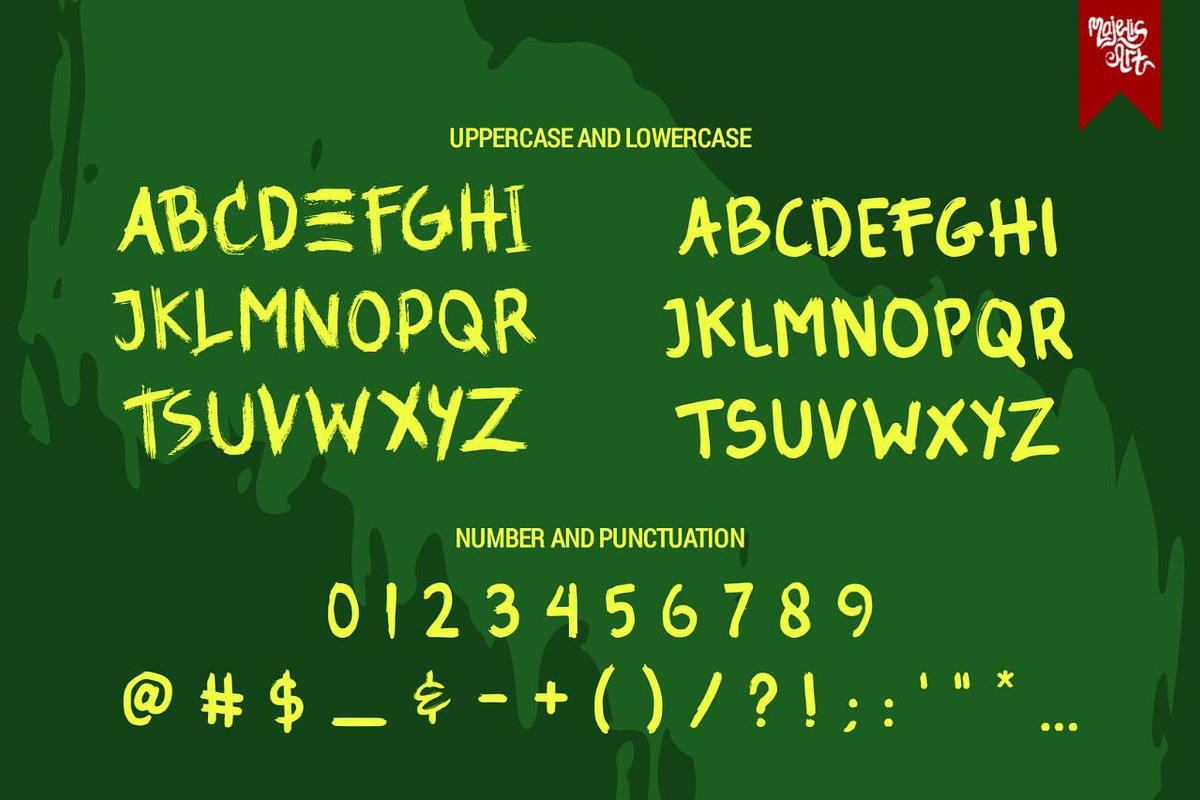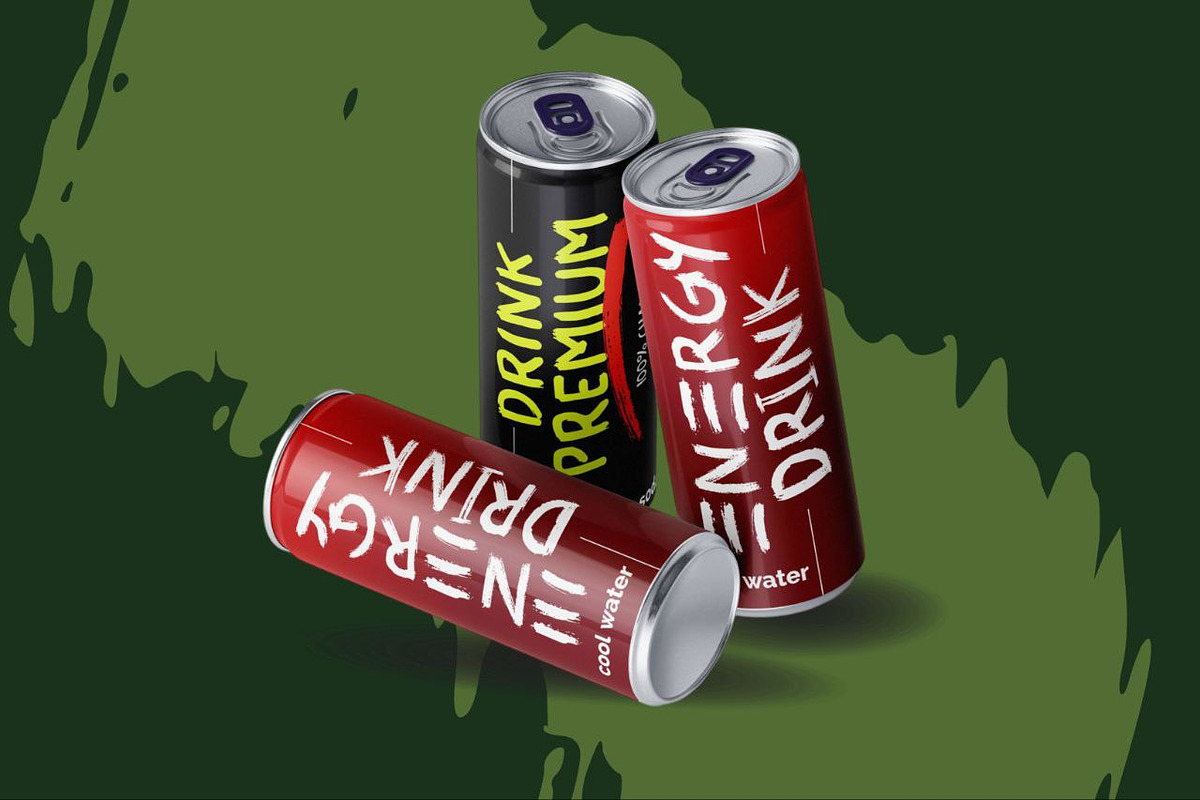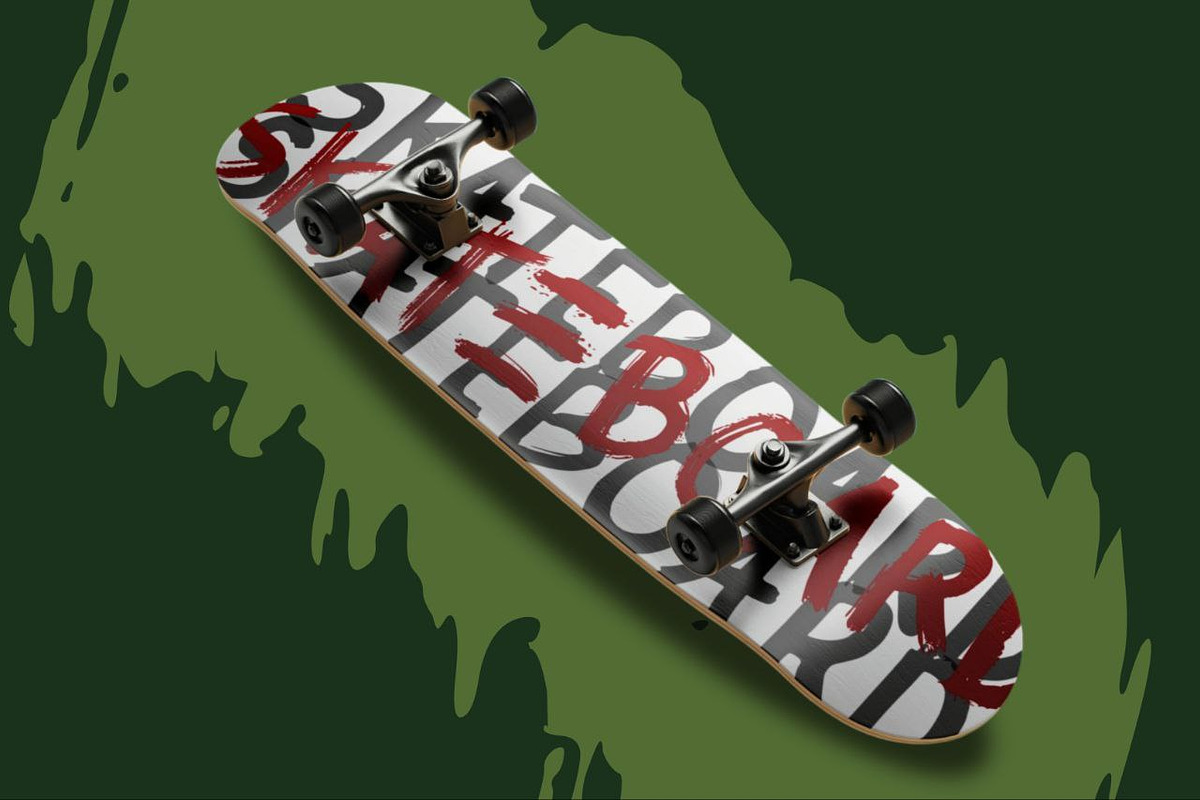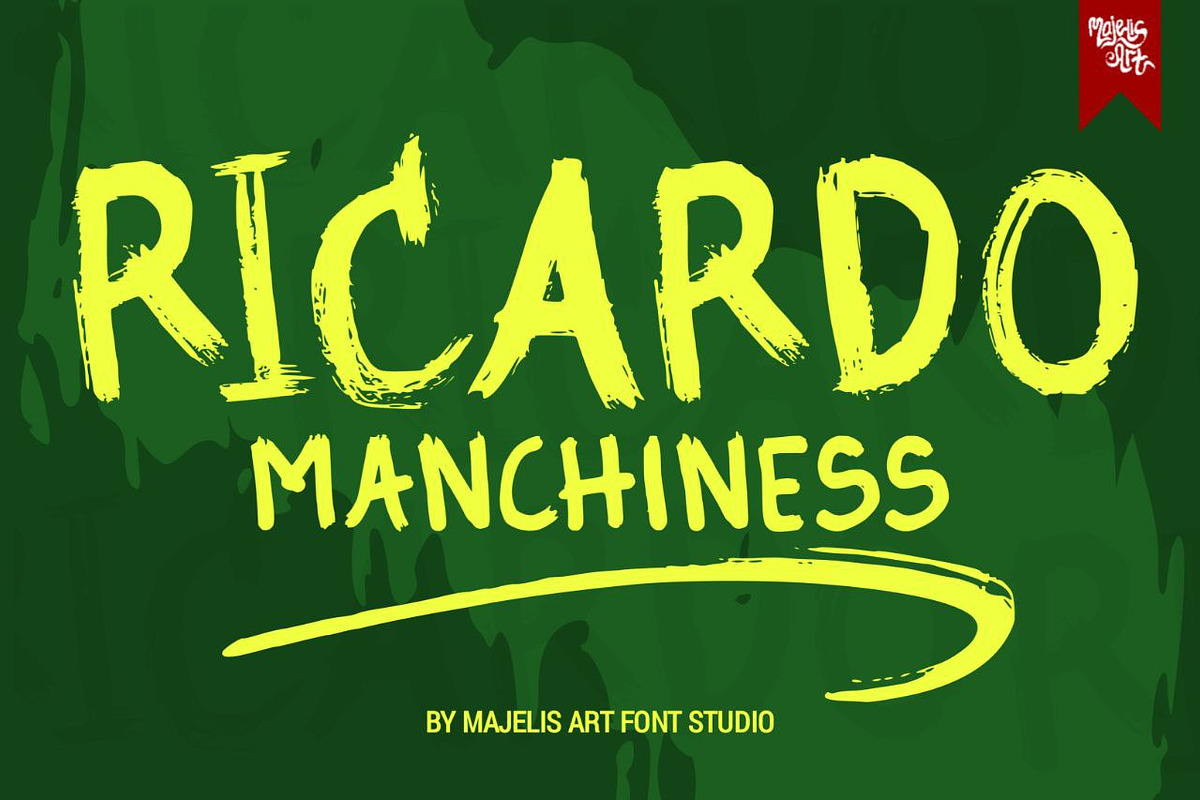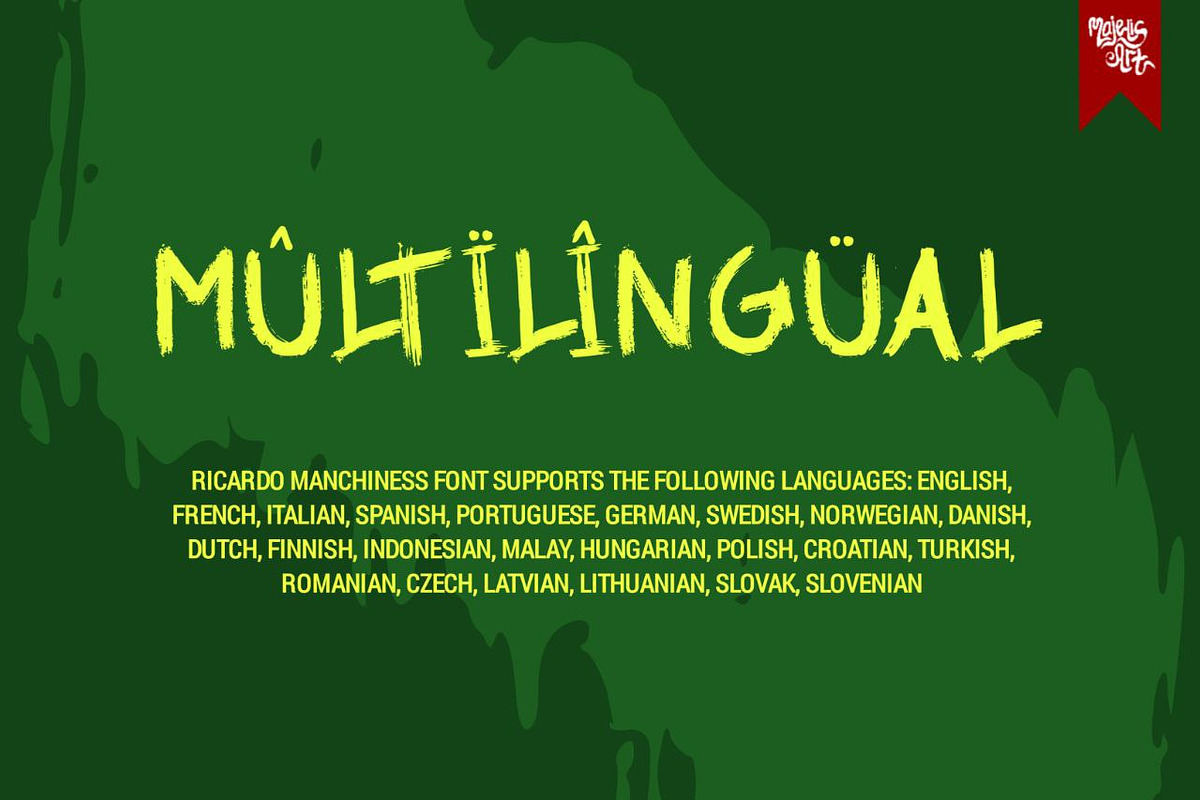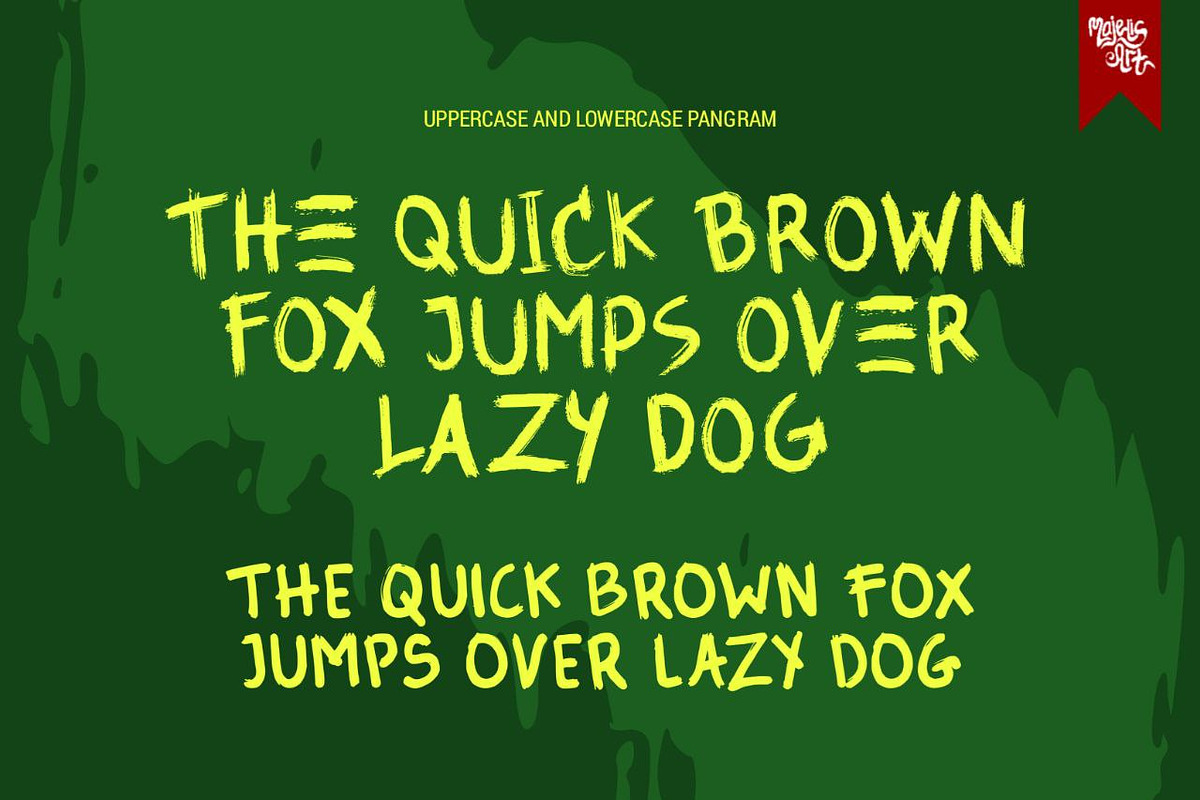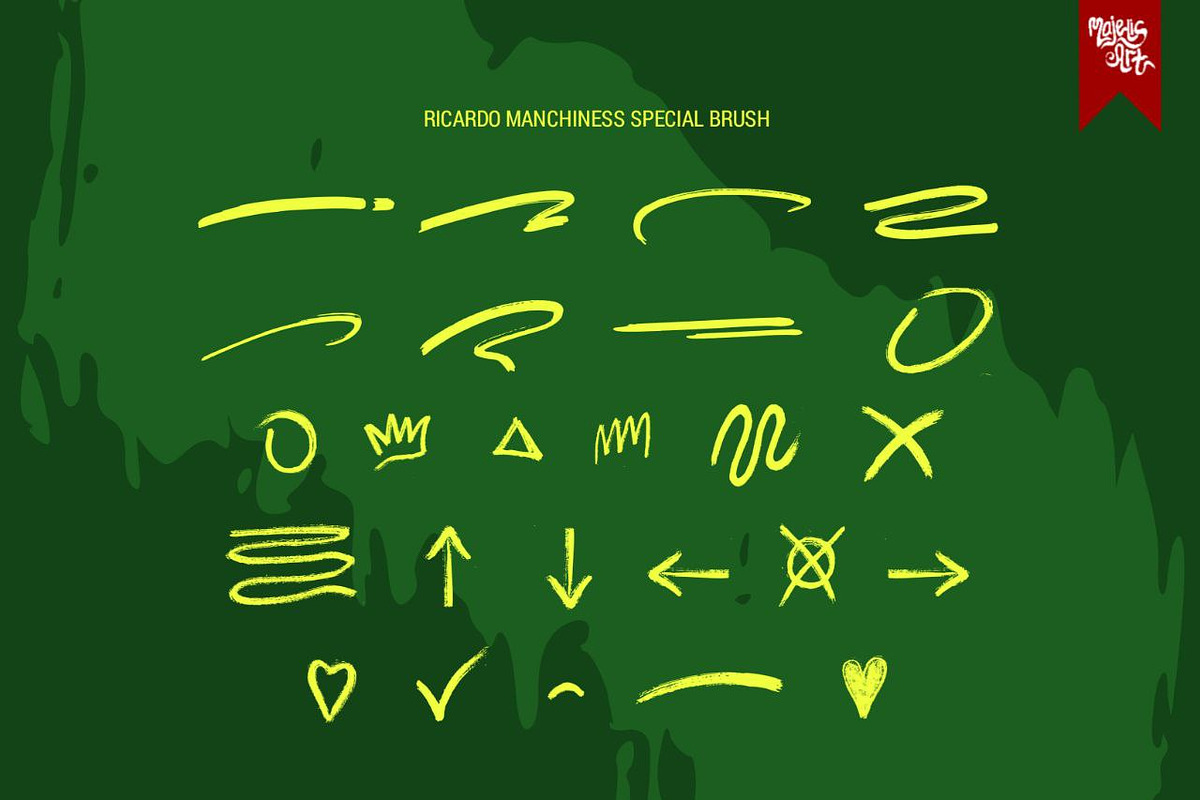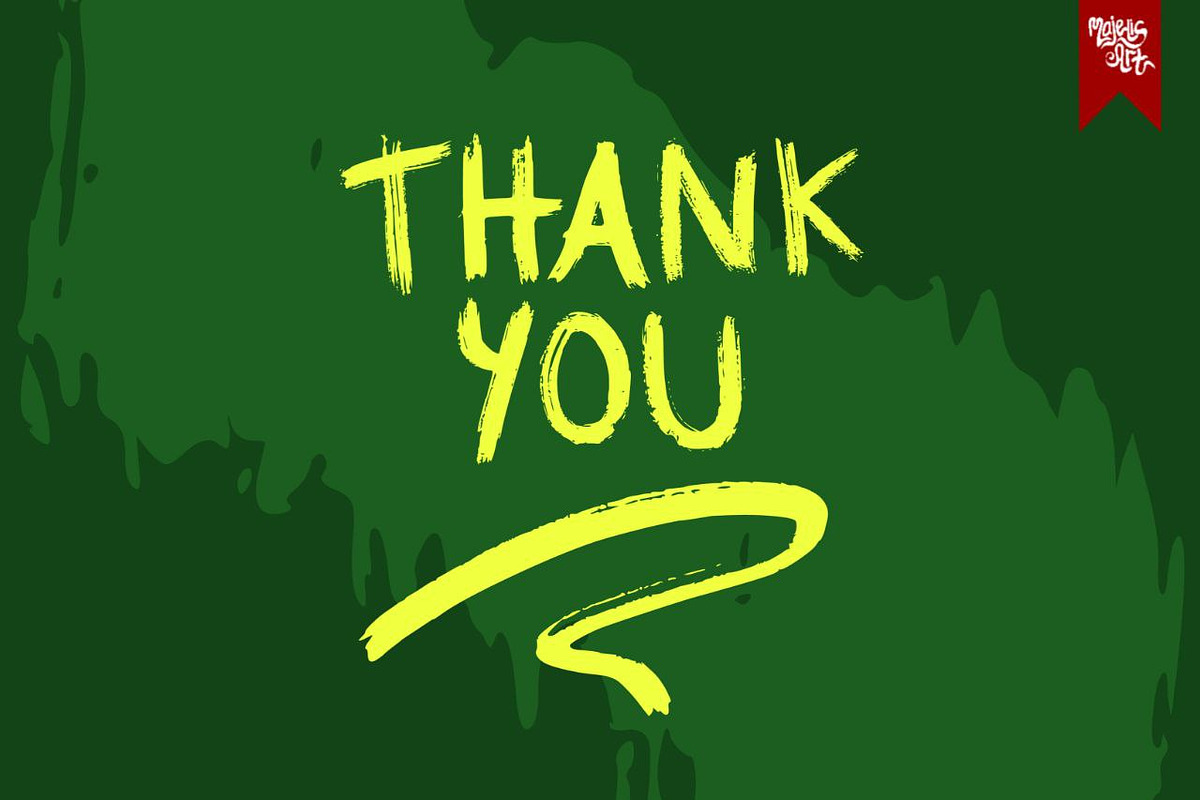
Ricardo Manchiness
Introducing our font "RIcardo Manchiness". This font is made by using a marker on paper that will look like a brush.
This font model is quite well known to many people who use it as material for making posters, magazines, books or even the titles of horror films. .........
-What do we provide? • Uppercase and lowercase • Number and Punctuation • Fonts supported by world languages • Brush special